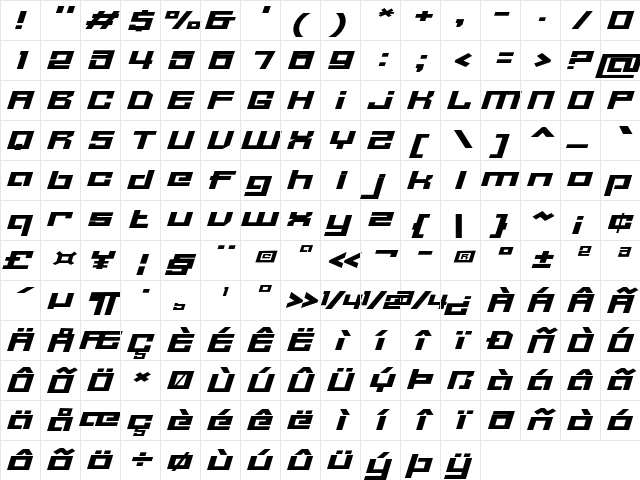
Entoba Extra-expanded Italic
Style: Extra-expanded Italic
Entoba Family
Design Context for Entoba
Entoba is a composed and adaptable typeface that performs quietly and consistently across a wide range of design contexts. The slanted form adds forward momentum and visual energy.
Pro Tip: Use Entoba for emphasis, pull quotes, and subheadings where its slanted energy can add rhythm to the layout.